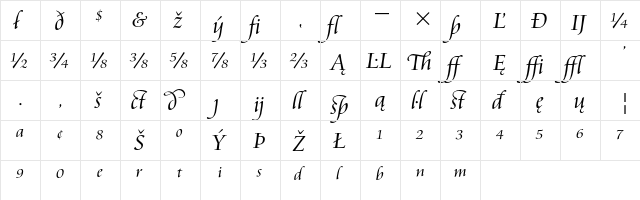
Cataneo Light Extension Font Preview
Cataneo Light Extension
Cataneo Light Extension Font Details
Design Context for Cataneo Typeface
Cataneo is a composed and adaptable typeface that performs quietly and consistently across a wide range of design contexts. The delicate stroke weight brings airiness and refinement to layouts.